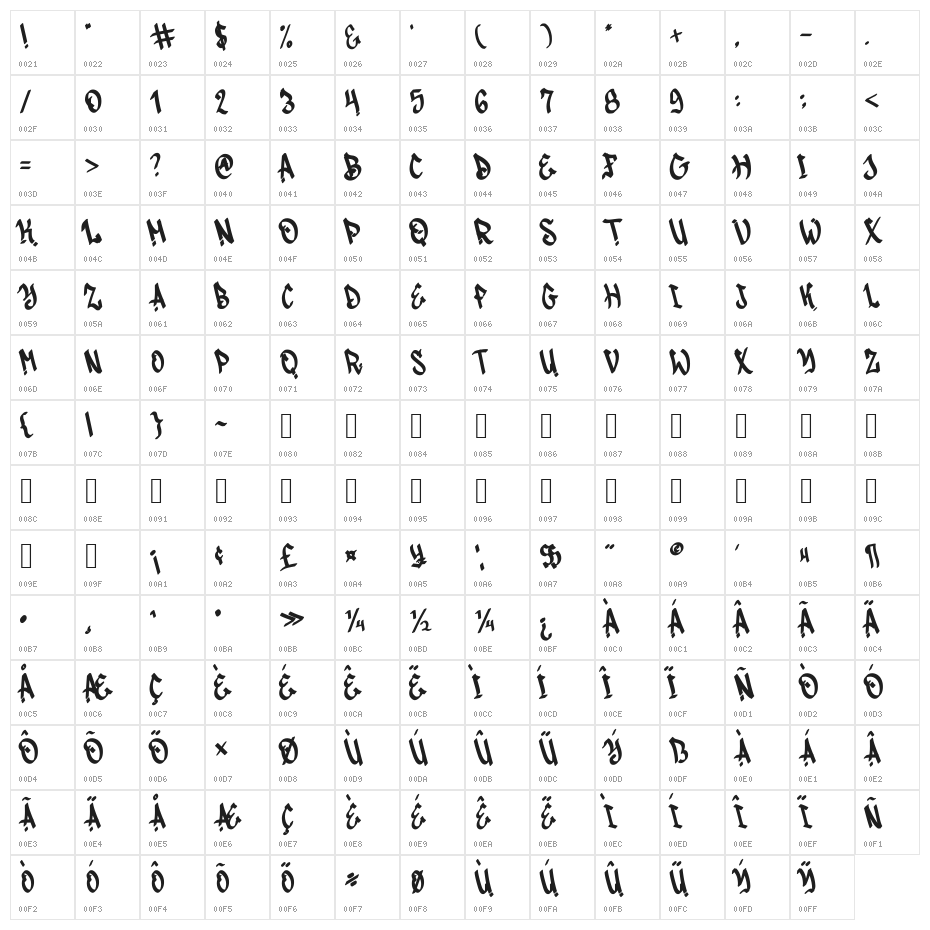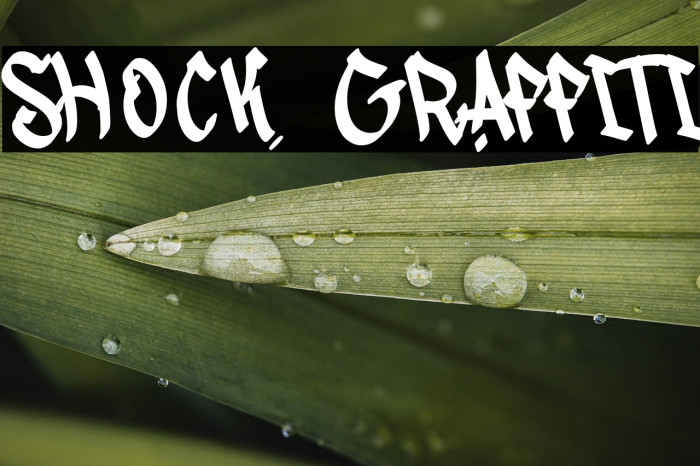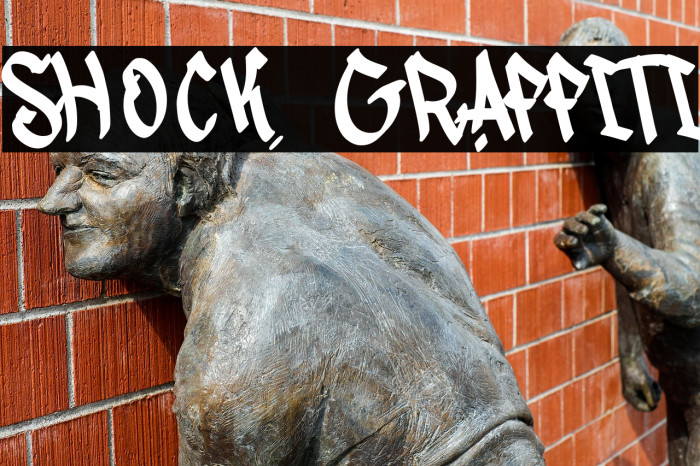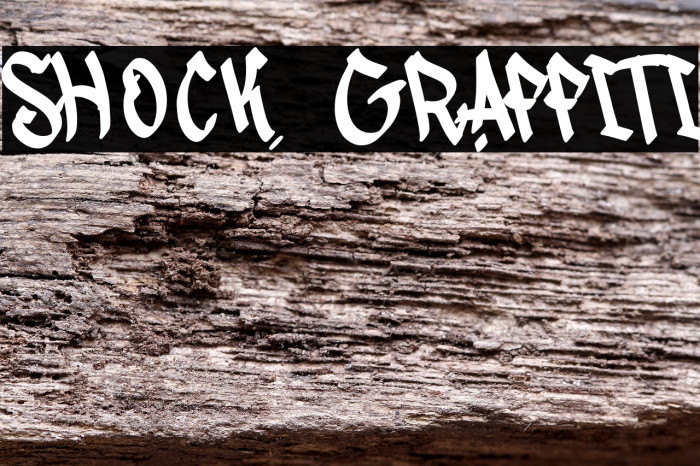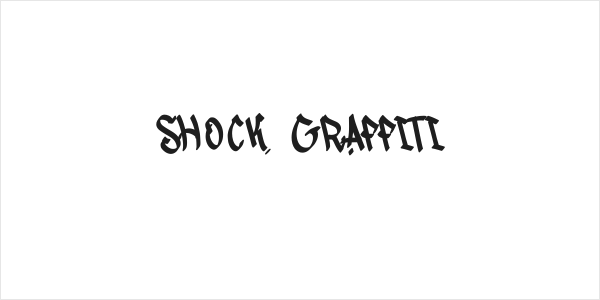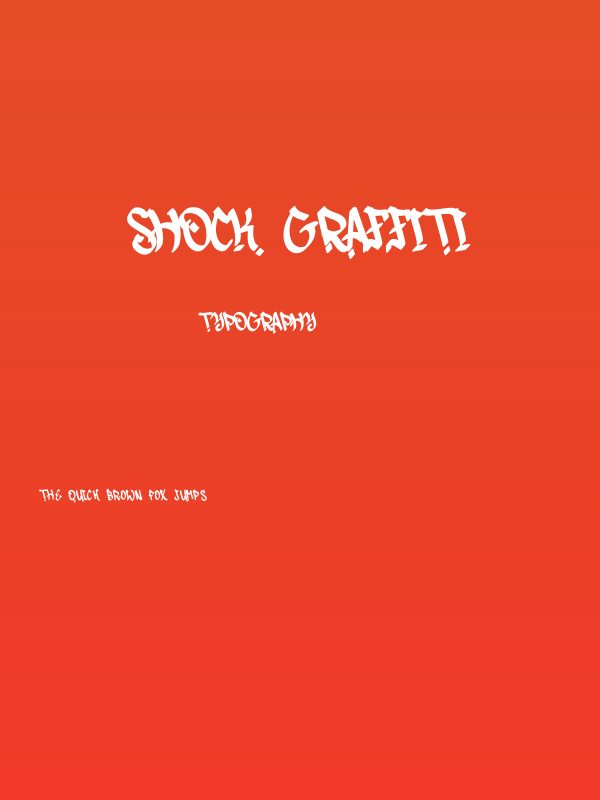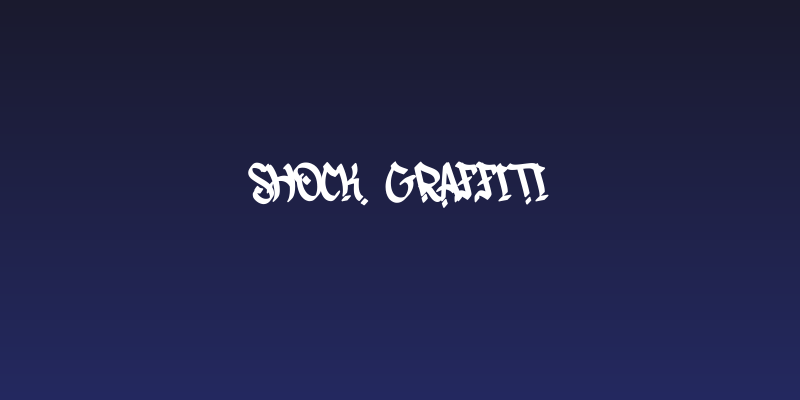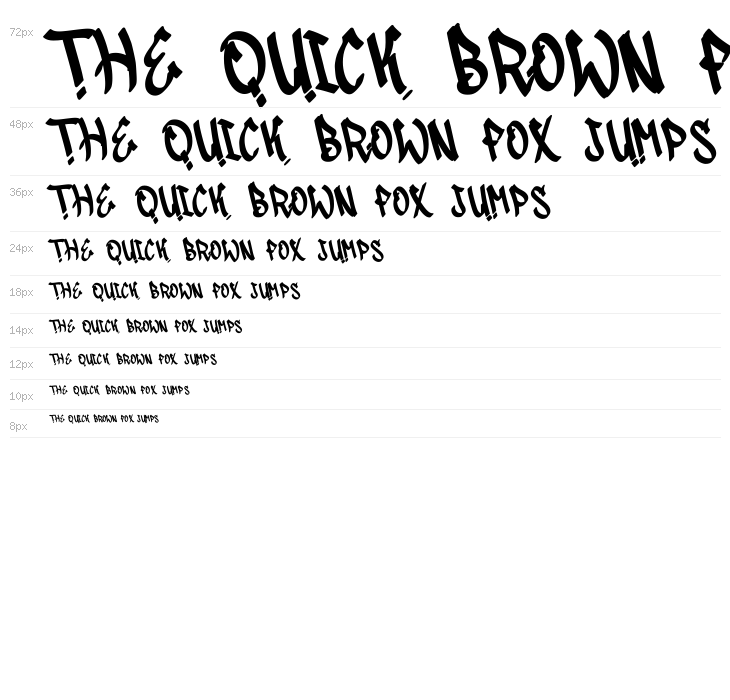
Shock Graffiti Font
Shock Graffiti Description
This font exudes a bold and dynamic graffiti style, characterized by its sharp angles and fluid strokes. The letters are designed with a sense of movement, giving them an energetic and rebellious feel. The uppercase and lowercase letters maintain a consistent style, with exaggerated curves and pointed edges that mimic the look of spray-painted street art. The numbers and special characters follow the same aesthetic, ensuring a cohesive appearance across all glyphs. This font is perfect for projects that aim to capture an urban, edgy vibe.
| Overall Style | Urban, Edgy, Rebellious |
| Use Case | Logos, Posters, Album Covers |
| Proposed Projects | Ideal for street art-inspired designs, urban-themed posters, music album covers, and edgy branding projects. |